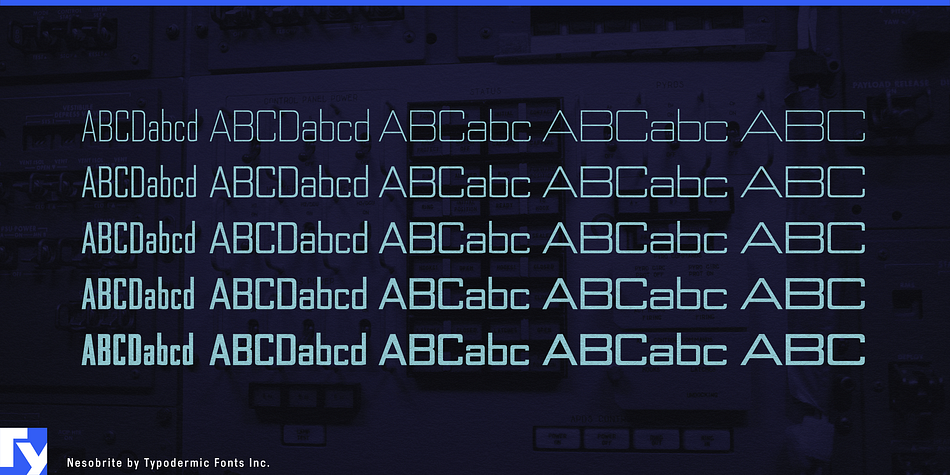
Nesobrite
Nesobrite is a display sans font family. This typeface has twenty-five styles and was published by Typodermic Fonts Inc.
The Nesobrite typeface is a striking representation of the modern, boxy design aesthetic. Its linear, mechanical structure is the perfect embodiment of clean and neutral, with an austere edge that adds a touch of sophistication to any design. This font has been inspired by classic square-sans fonts, such as Bank Gothic and Microgramma, but with a contemporary twist that sets it apart.
One of the most remarkable aspects of Nesobrite is its ability to imbue your message with a clear, professional, and authoritative voice. Its scientific vitality is sure to make your text come to life, whether it is for a technical report, a research paper, or a business presentation. The font’s versatility makes it ideal for conveying complex data and analytical information in a concise, clear, and easy-to-read manner.
Nesobrite is also packed with useful features that make it an invaluable tool for any designer. Its small caps function is a useful addition for those looking to create designs that exude an air of formality and elegance. The font comes in five different widths and weights, as well as italics, which allows designers to use it in various contexts and settings.
But what truly sets Nesobrite apart is its boxy design. The typeface’s clean and geometric structure is an ode to the modernist design movement, with its minimalistic and uncluttered aesthetic. Its sharp corners, angular edges, and right angles give it a distinct and eye-catching appearance that is sure to capture the attention of anyone who sees it.
In conclusion, the Nesobrite typeface is the perfect tool for designers looking to create a sleek, modern, and professional look for their projects. Its linear, mechanical design, scientific vitality, and boxy design make it a versatile and dynamic font that is sure to elevate any project to new heights. With its range of weights, widths, and italics, Nesobrite is the perfect font for any designer looking to make a statement with their work.